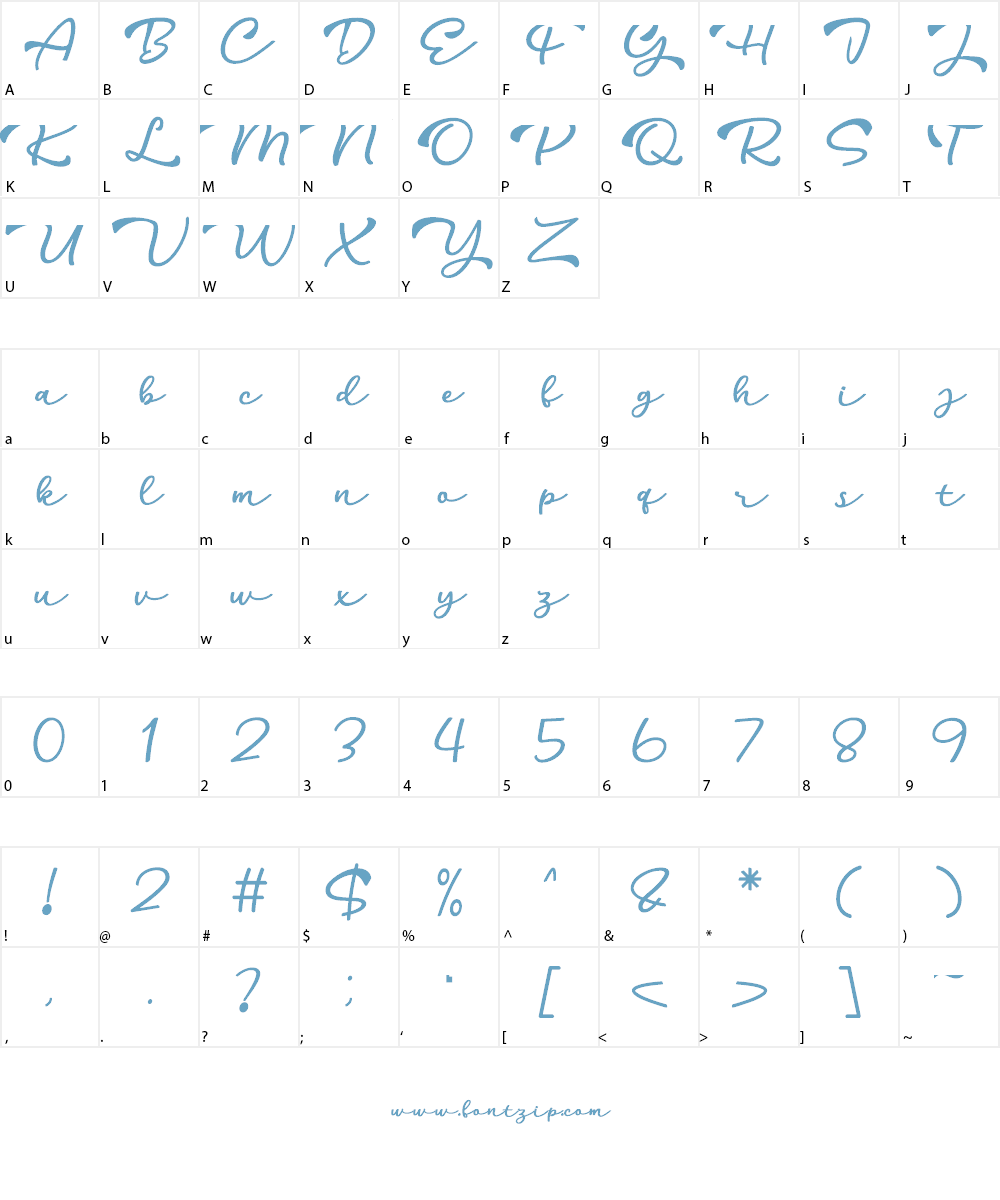
HARITH is a script font that has swash at the end of letters that gives an exotic and flowing impression. It can be used in different purposes: lettering and logotype, labels, t-shirts, product packaging, invitations, advertising and any key text in design.